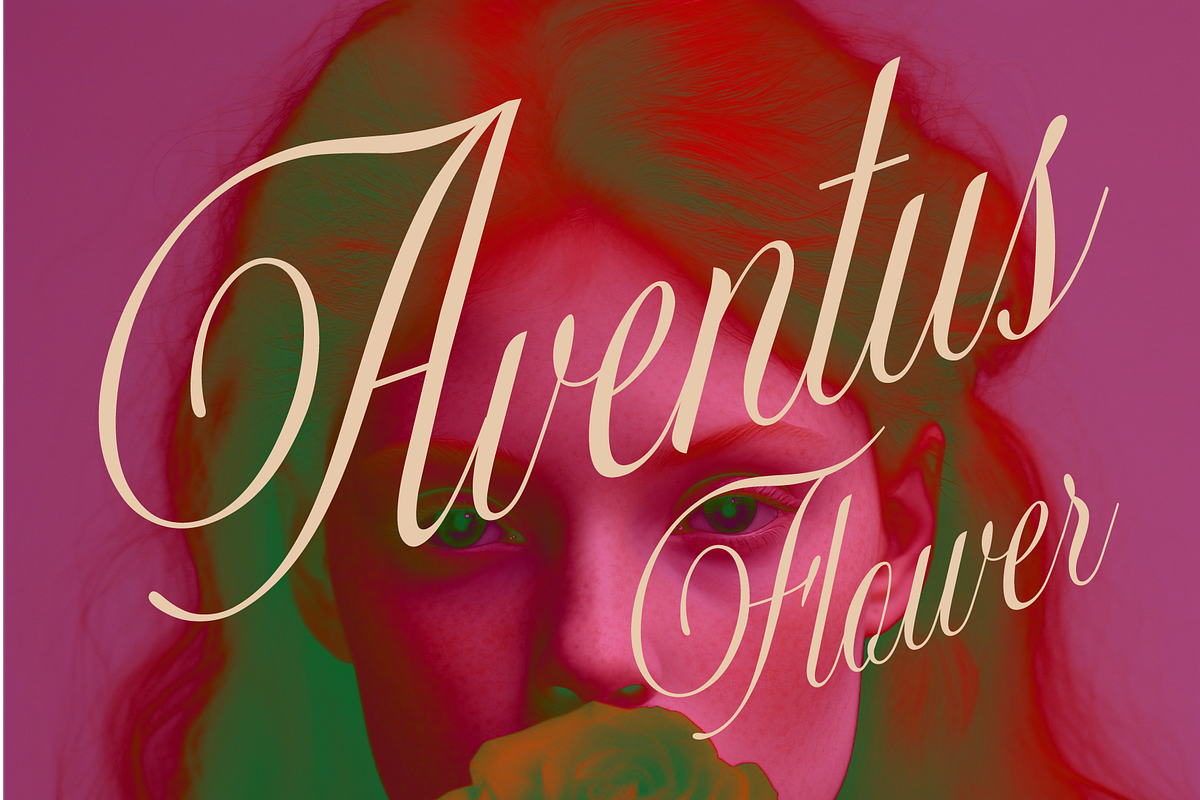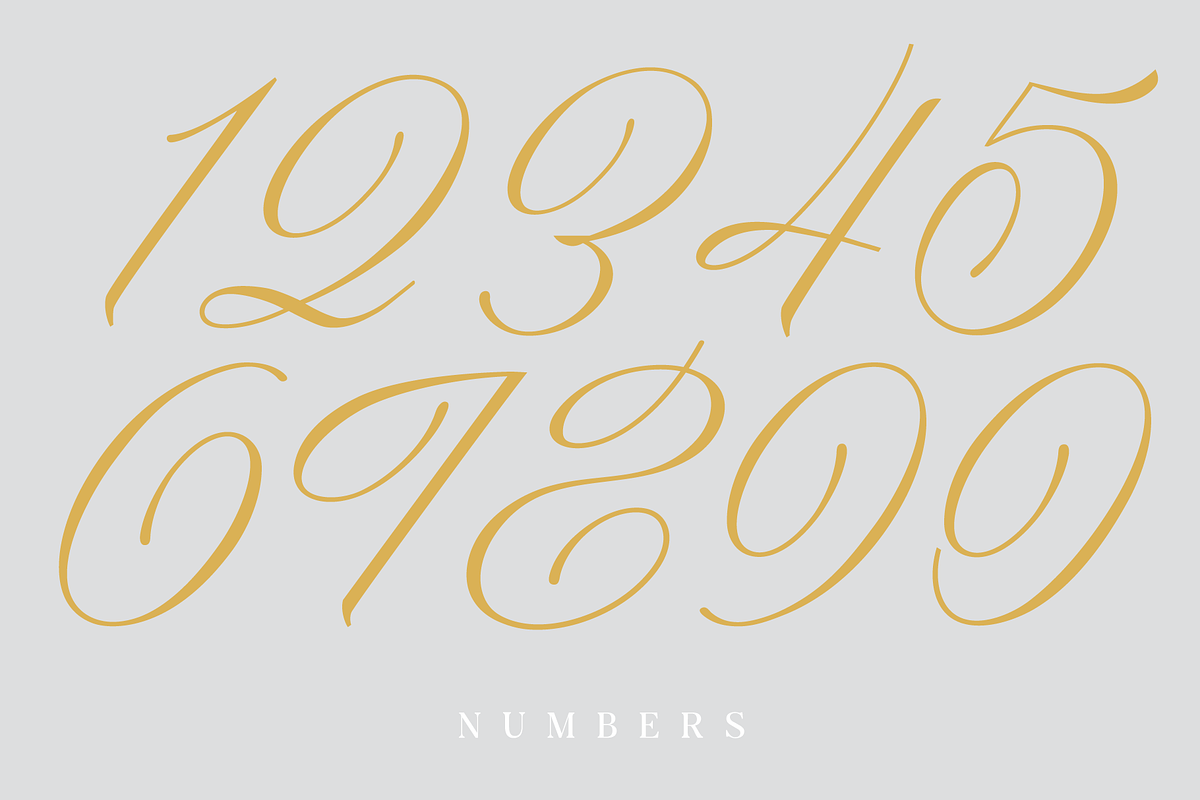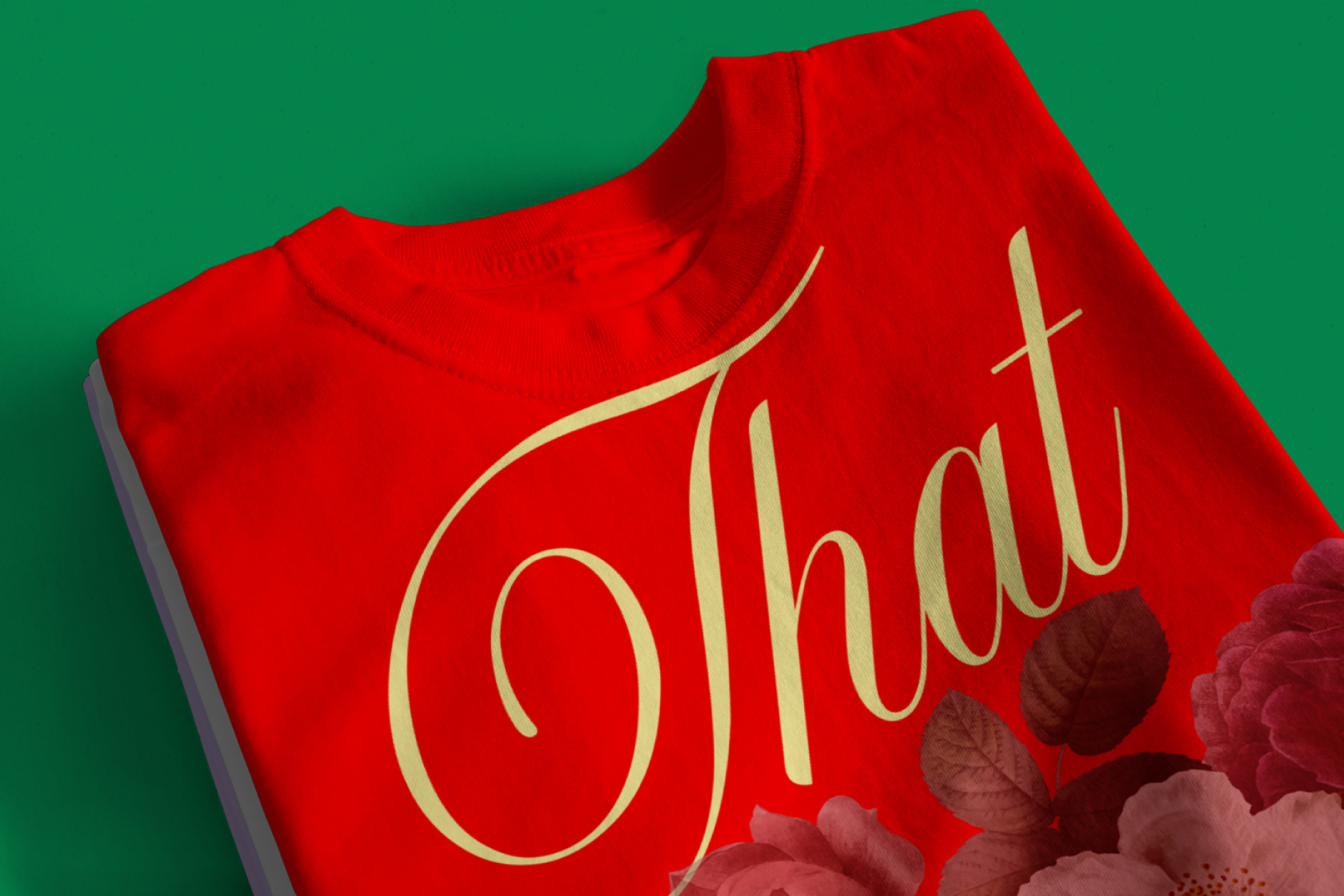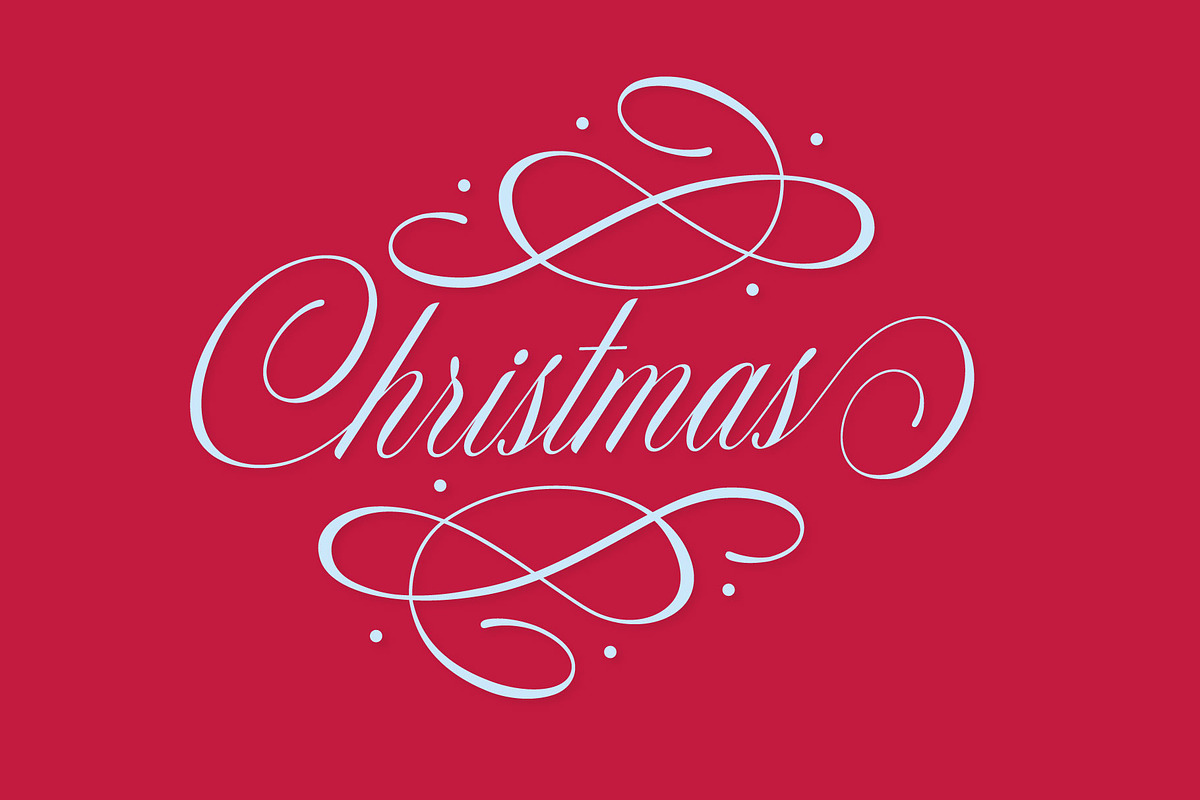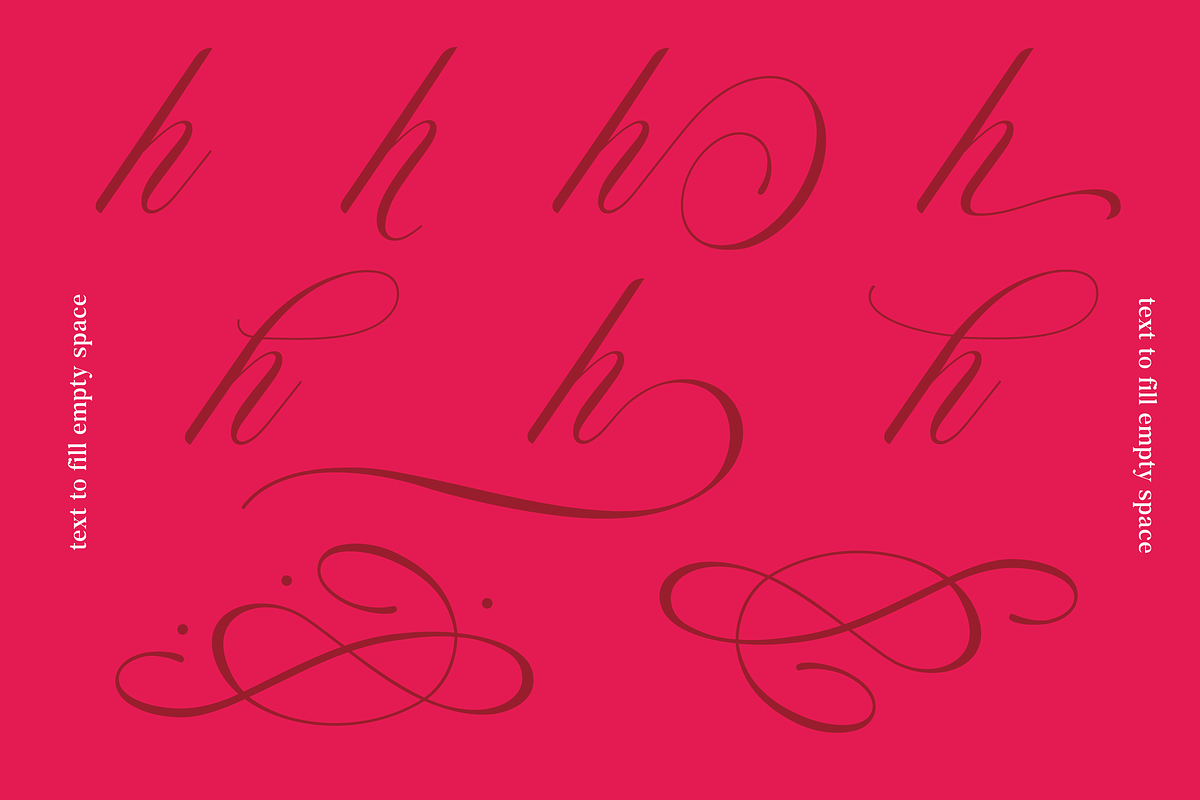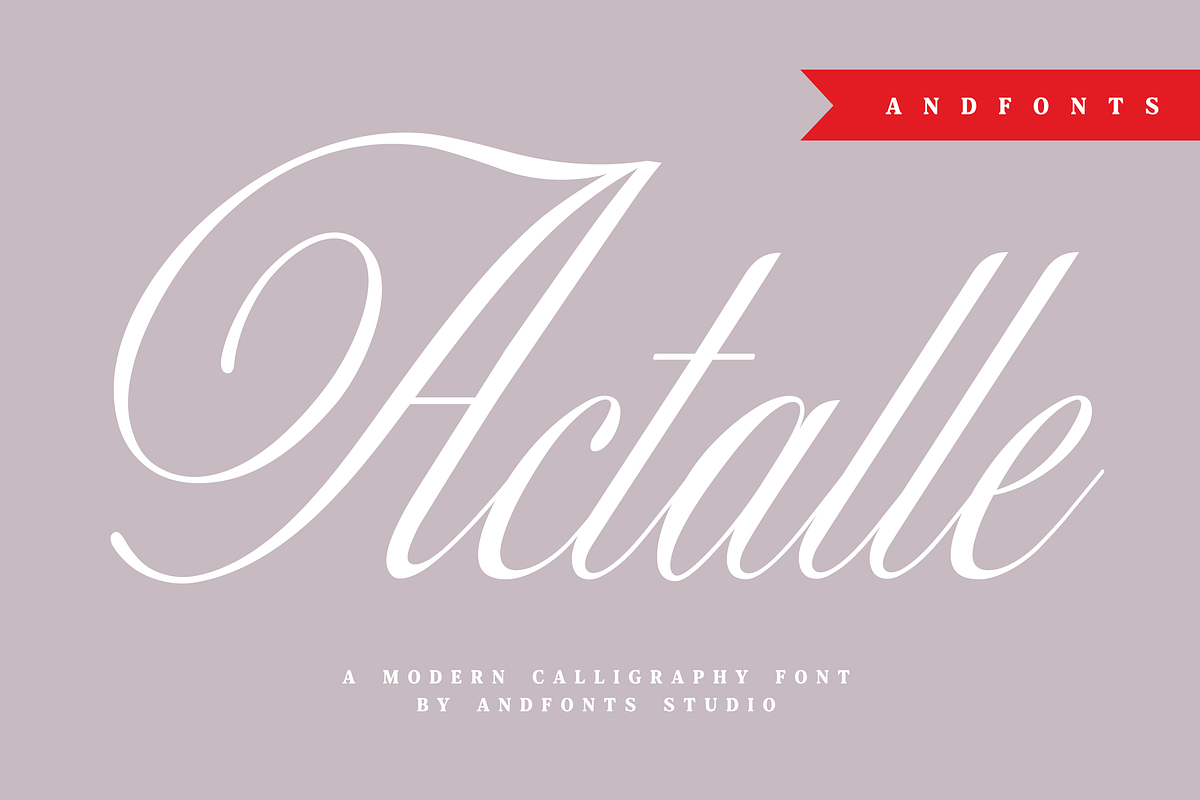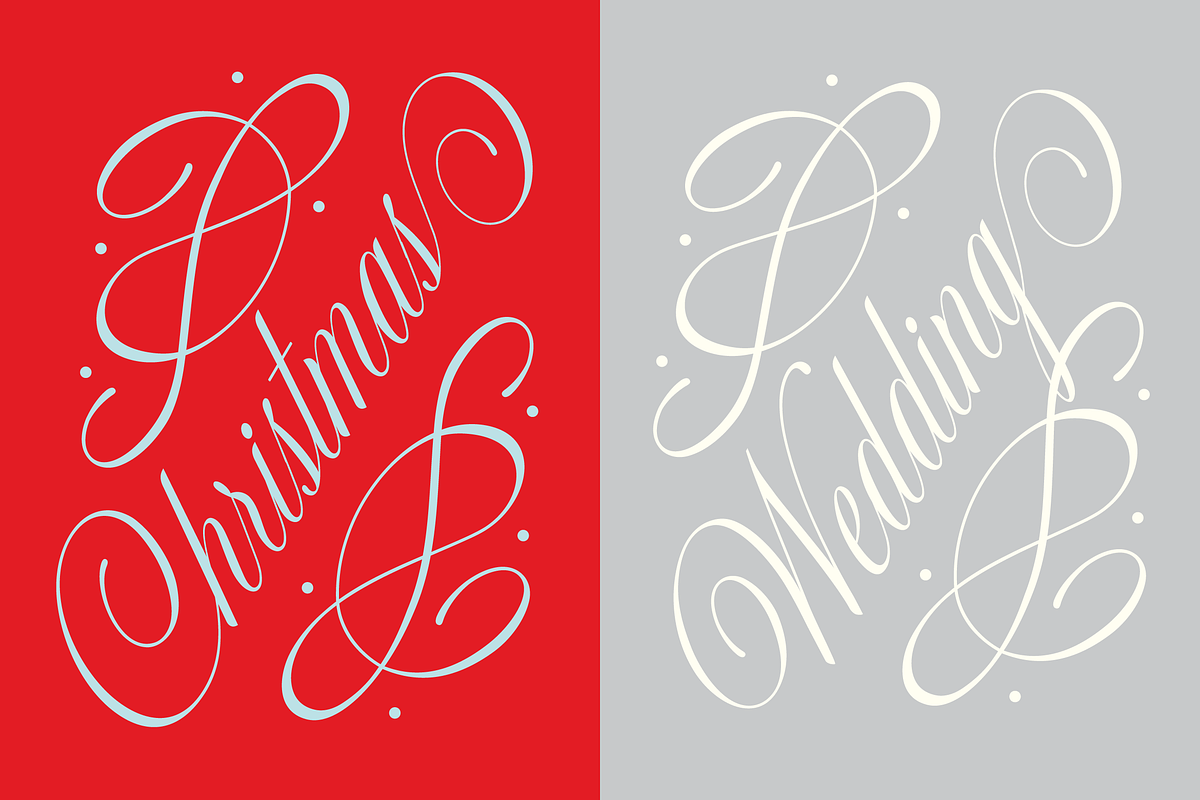
Actalle Calligraphy Font
Meet Actalle, a thin calligraphy, narrow font, for long names. Imagine You have 7-10 letters, need to make it compact but also add some swirls, swooshes and overall create great composition. It's a perfect choice for various design projects.
Yes, yes, You can create that ''Christmas'' or ''Wedding'' composition with any words. Those decor elements can be added as ligatures typing +++++ or can be found in glyph category in your Adobe software or any other software that support OTF files. Each small letter has swirls, we fonts designers call it - alternates.